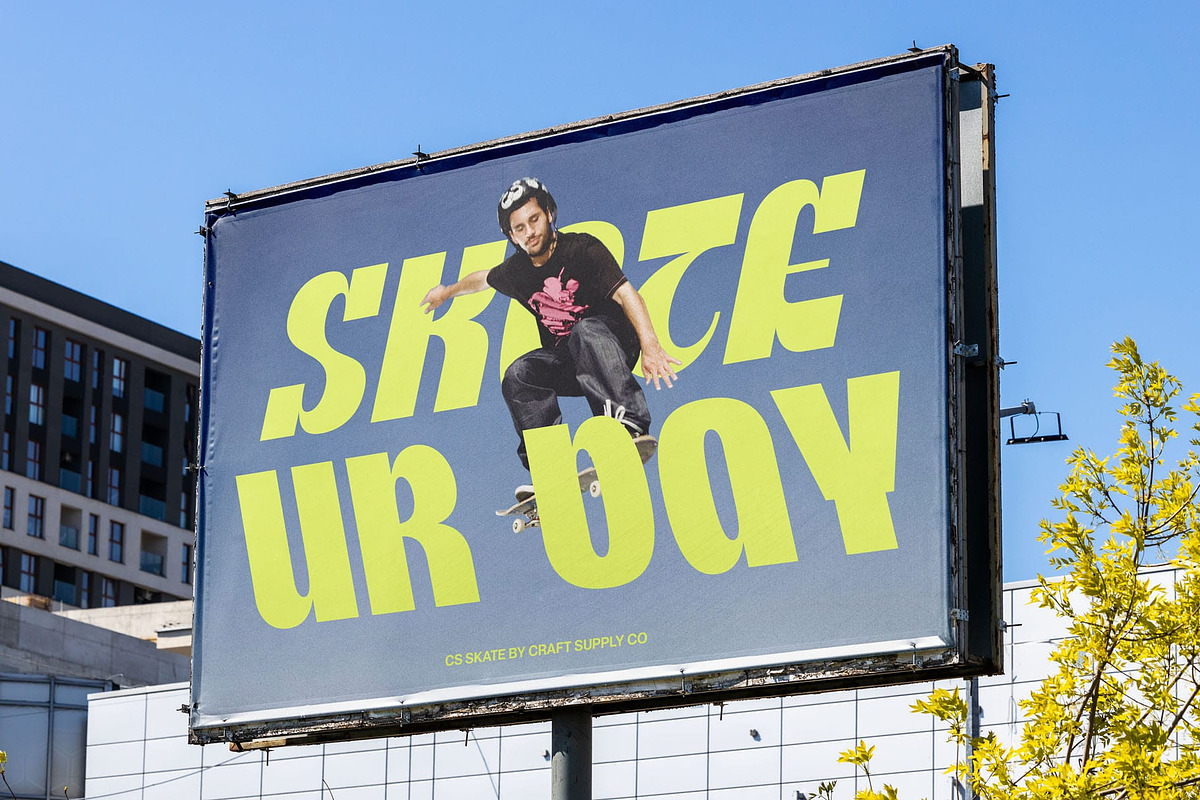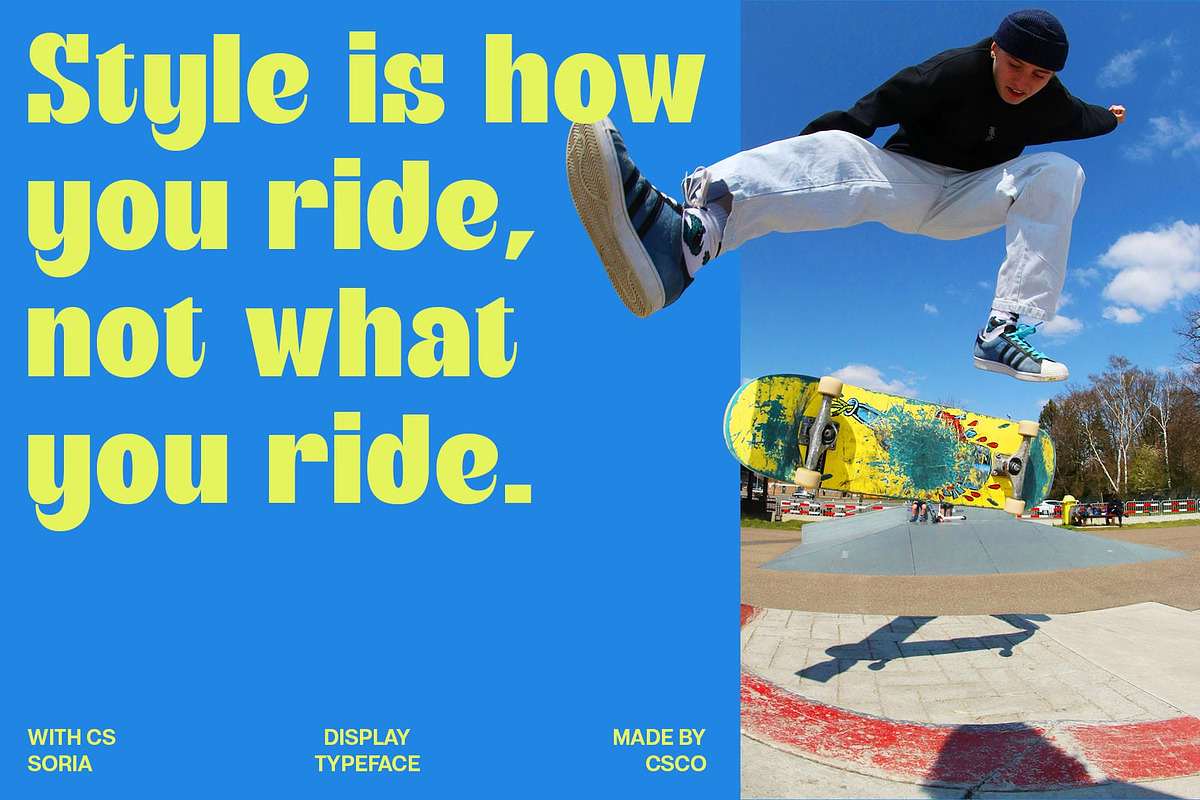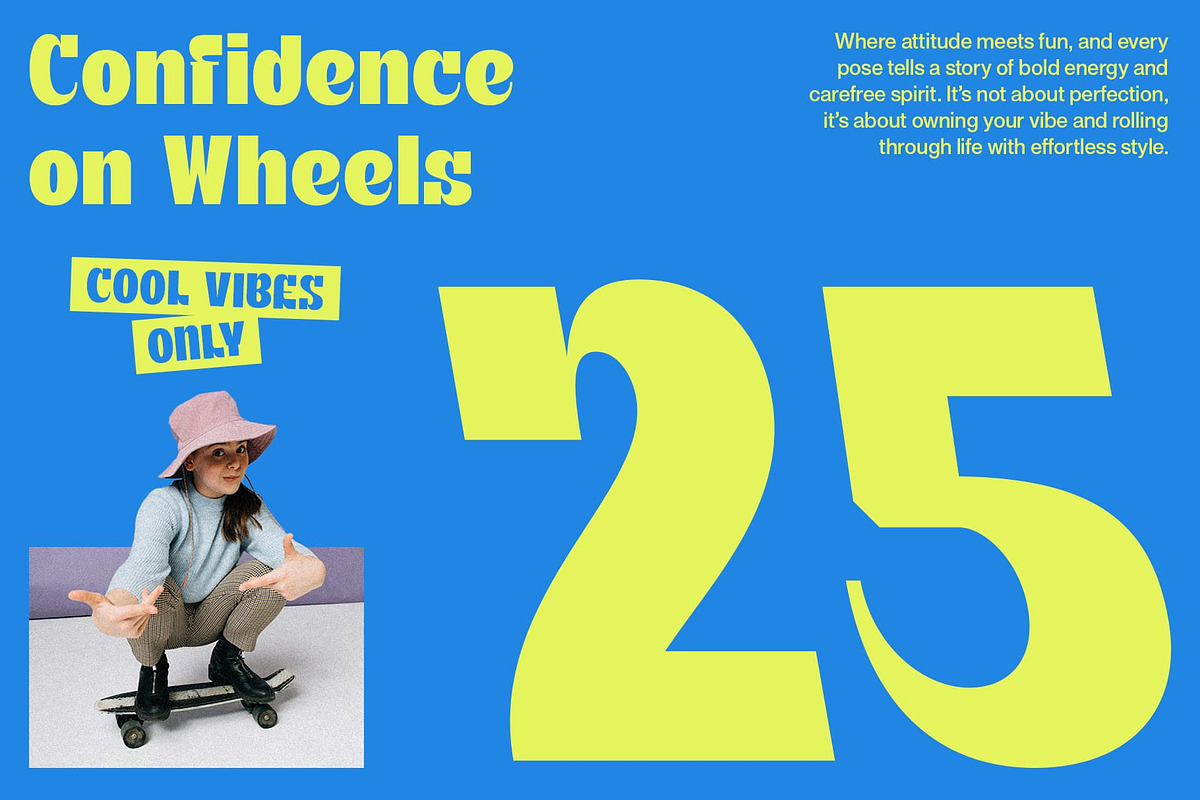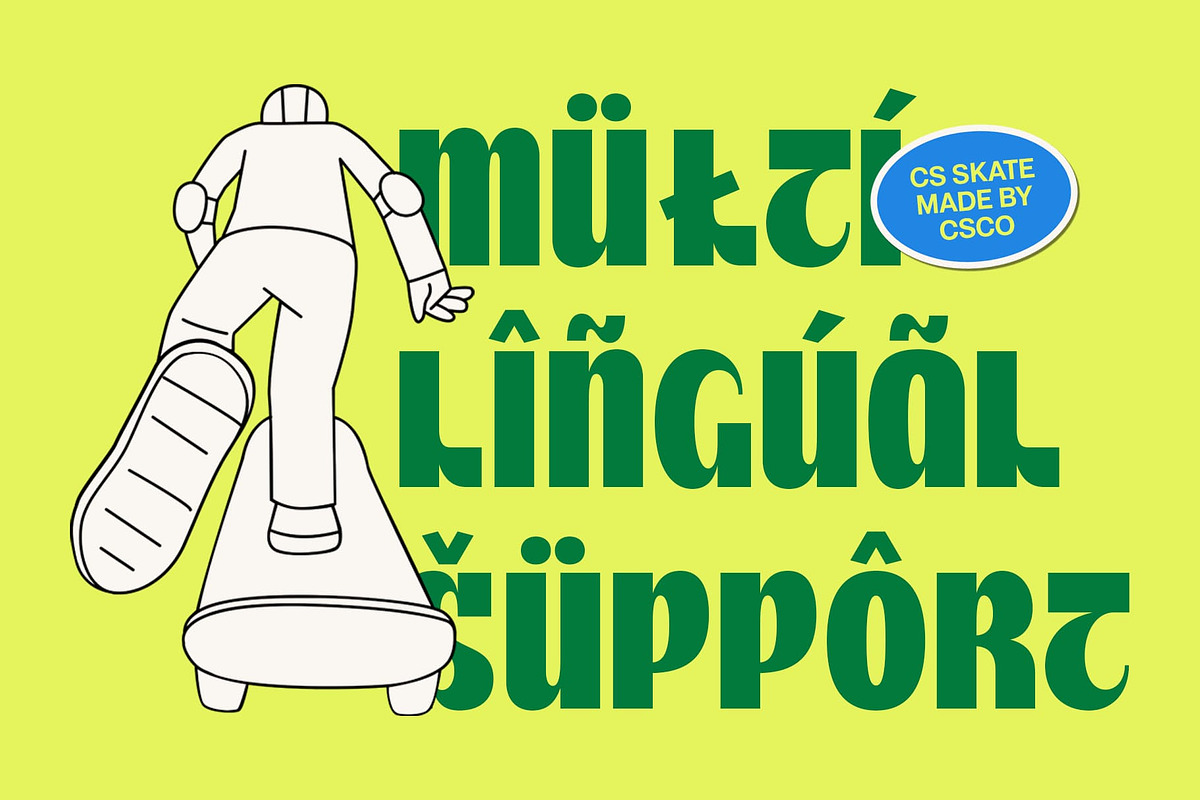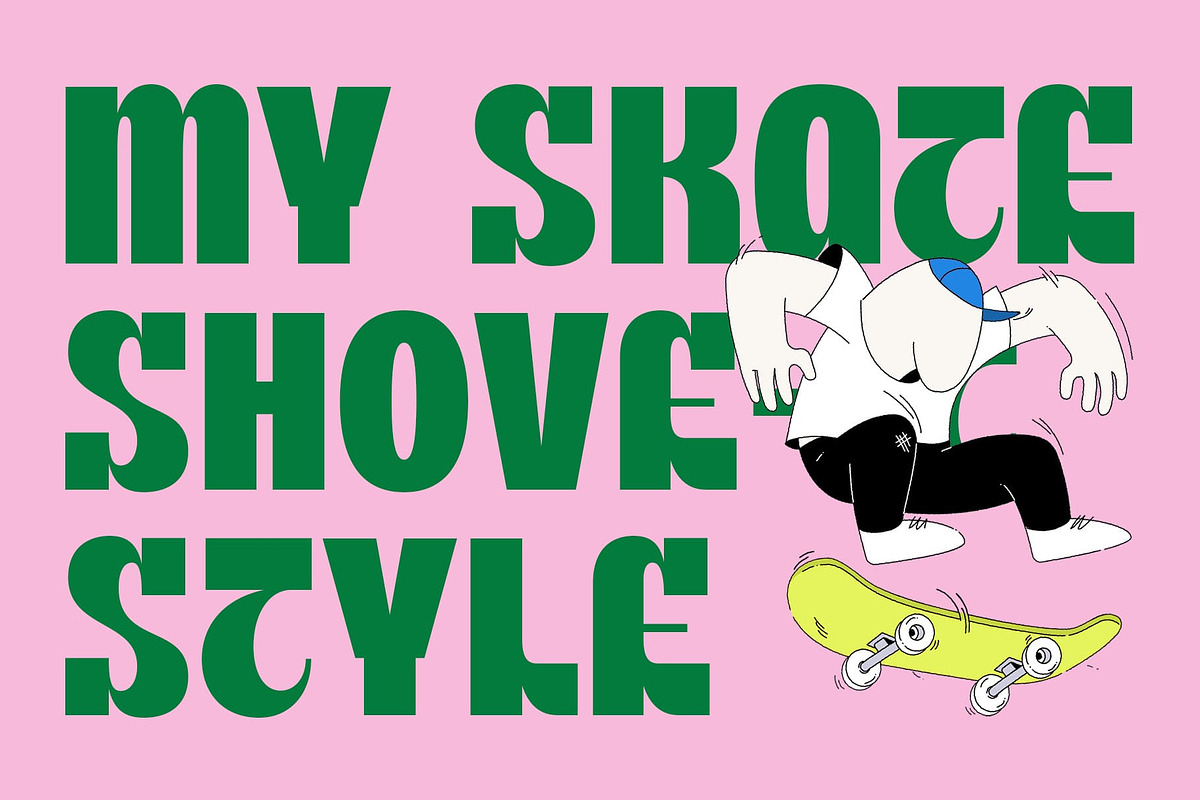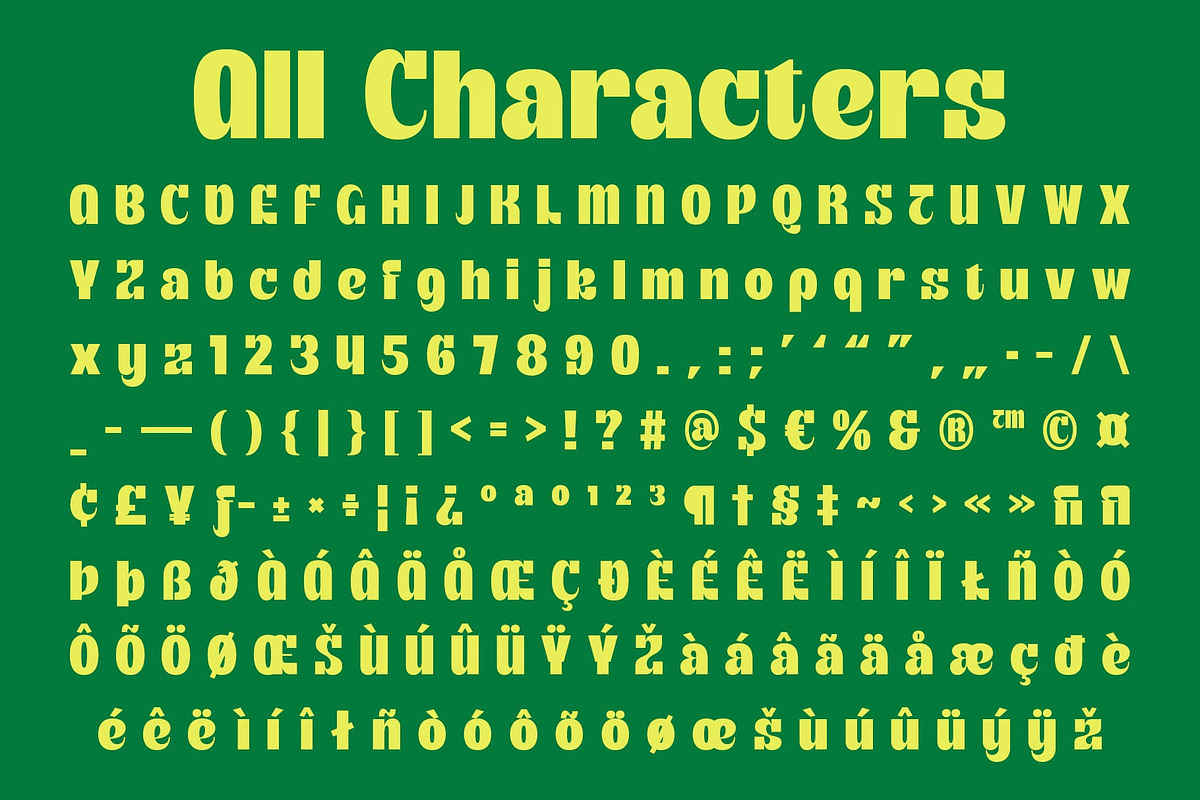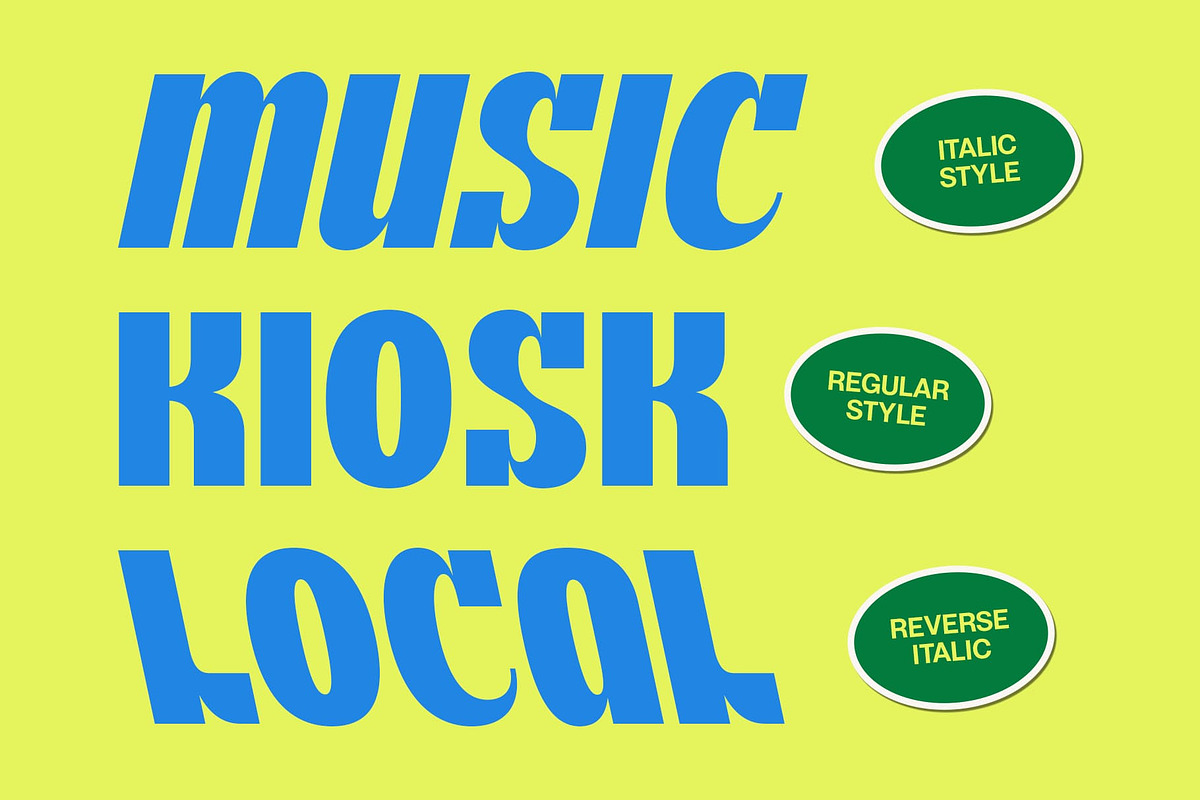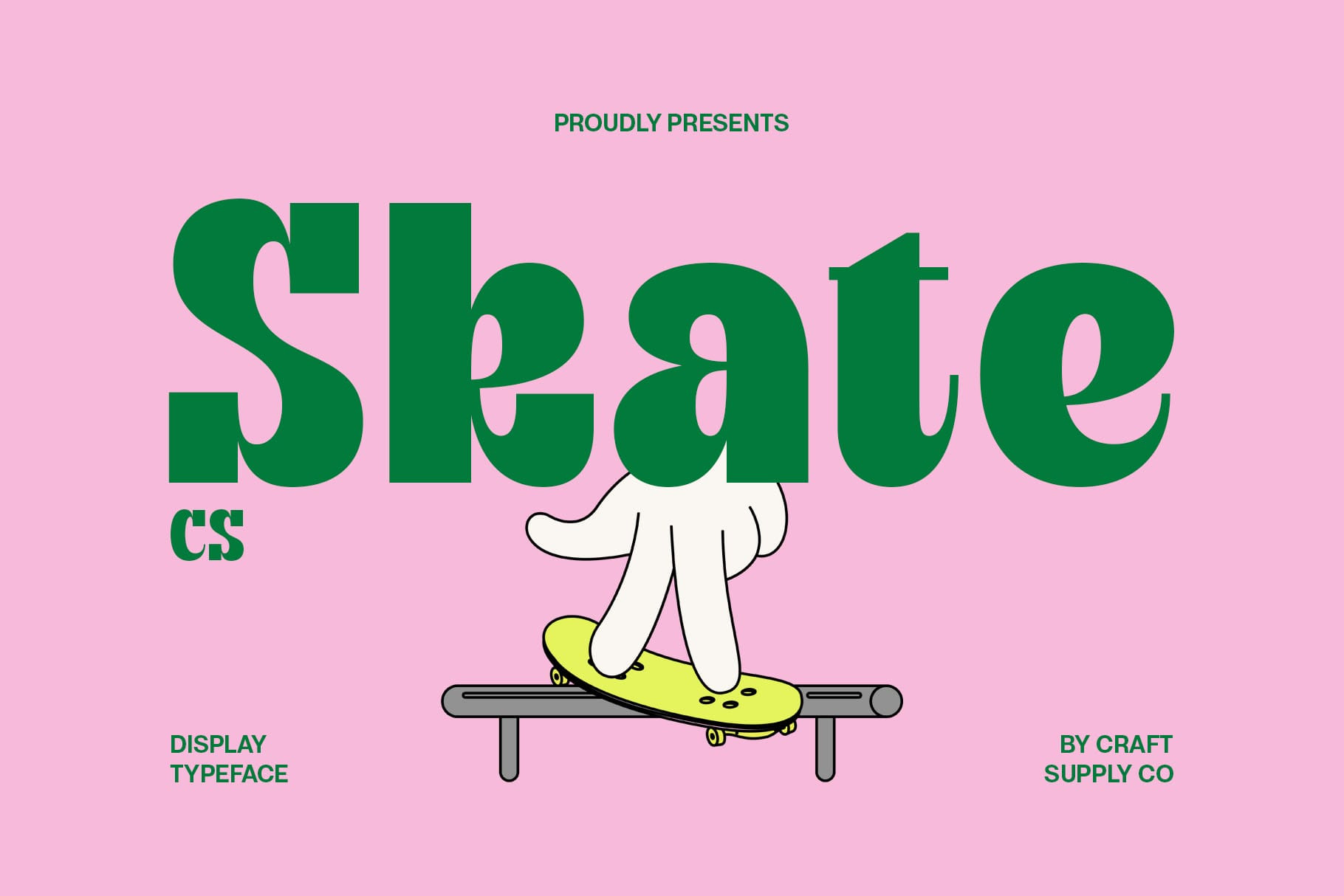
CS Skate – Modern Display Font
CS Skate – Modern Sans Serif with Art Nouveau Flair: Bold Elegance in Motion
A Display Font Made for Impact This is a bold display font designed to make a statement. Combining the strength of modern sans serif structure with the elegance of Art Nouveau curves, this font commands attention while maintaining a graceful flow. Every letter is crafted with purpose, creating a perfect harmony between boldness and beauty.
Graceful Curves and Contemporary Style The charm of this font lies in its smooth, organic curves inspired by Art Nouveau aesthetics. These fluid shapes soften the bold geometry of the sans serif form, resulting in a unique typographic balance both powerful and refined. It’s an ideal choice for designers who want to project confidence with a touch of artistic flair.
Perfect for Bold Visual Statements this font’s combination of precision and artistry makes it perfect for large-scale designs. Whether used in branding, editorial headlines, or poster layouts, this font draws the eye and leaves a lasting impression. Its structured yet flowing form ensures visual impact across print and digital media.
Versatile and Expressive Design While bold and attention-grabbing, this font remains versatile. It adapts easily to various creative directions from elegant fashion branding to expressive display typography. Use it to elevate your designs with sophistication, movement, and a distinctly modern-artistic edge.
- CS Skate Regular
- CS Skate Italic
- CS Skate Reverse Italic